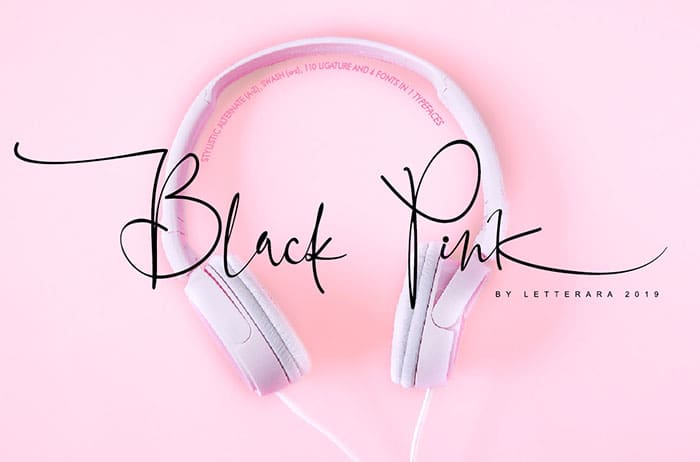
Black Pink Handwritten Font
Black Pink Handwritten Font is a beautiful calligraphy family. It’s perfect for adding a luxurious touch to your logos, packaging, wedding stationary, websites, and every other designs which need a handwritten feel. Created this font by Thomas Aradea. You can also search more free Fonts.